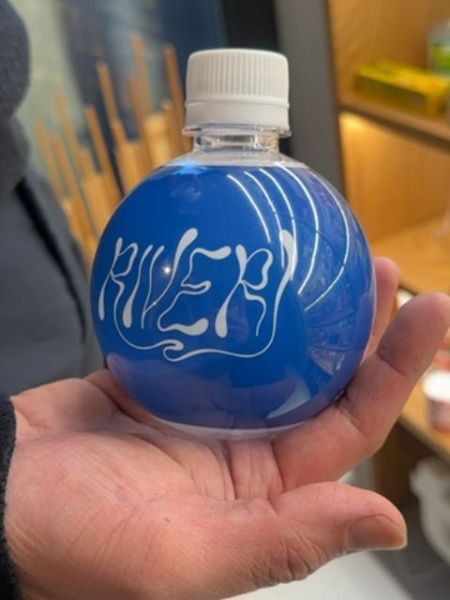
River
A beverage product, possibly flavored or infused water.
The typography on the packaging features a fluid and organic script, reminiscent of water flow, which aligns with the product's name and theme. The white color of the text contrasts sharply with the blue background, enhancing readability while adding an artistic flair.